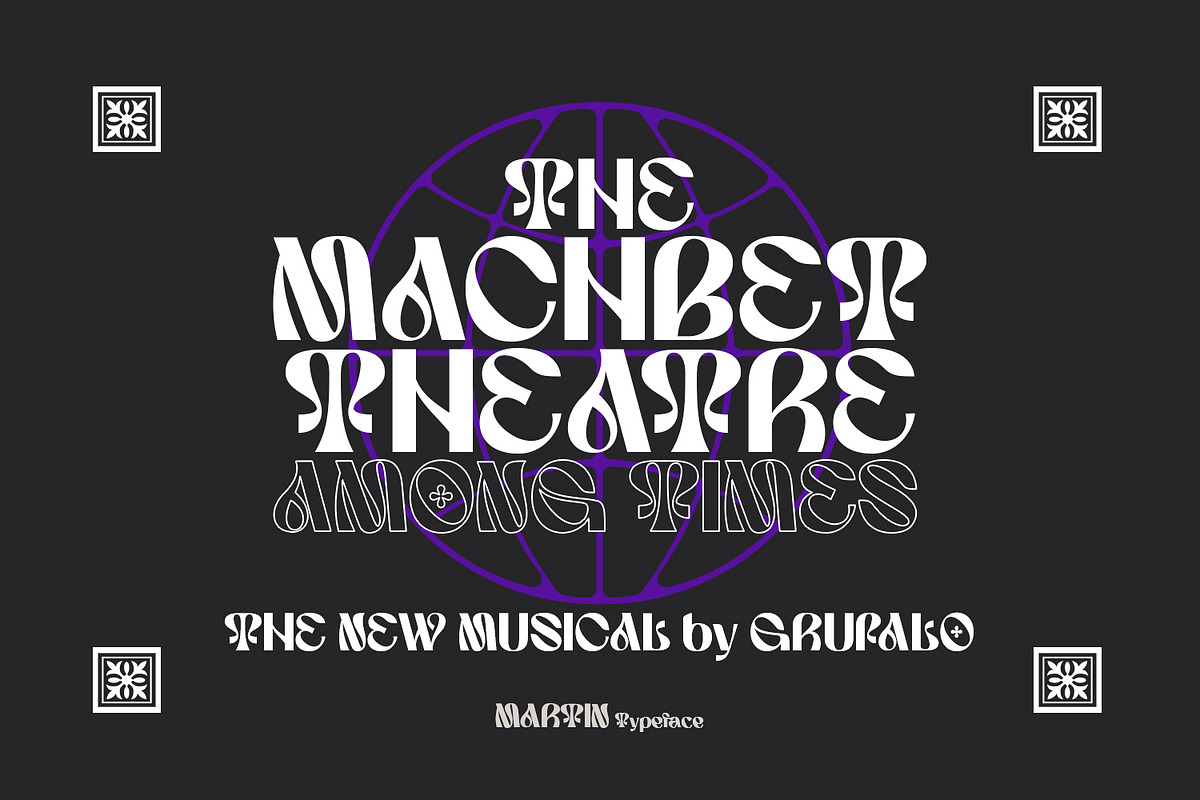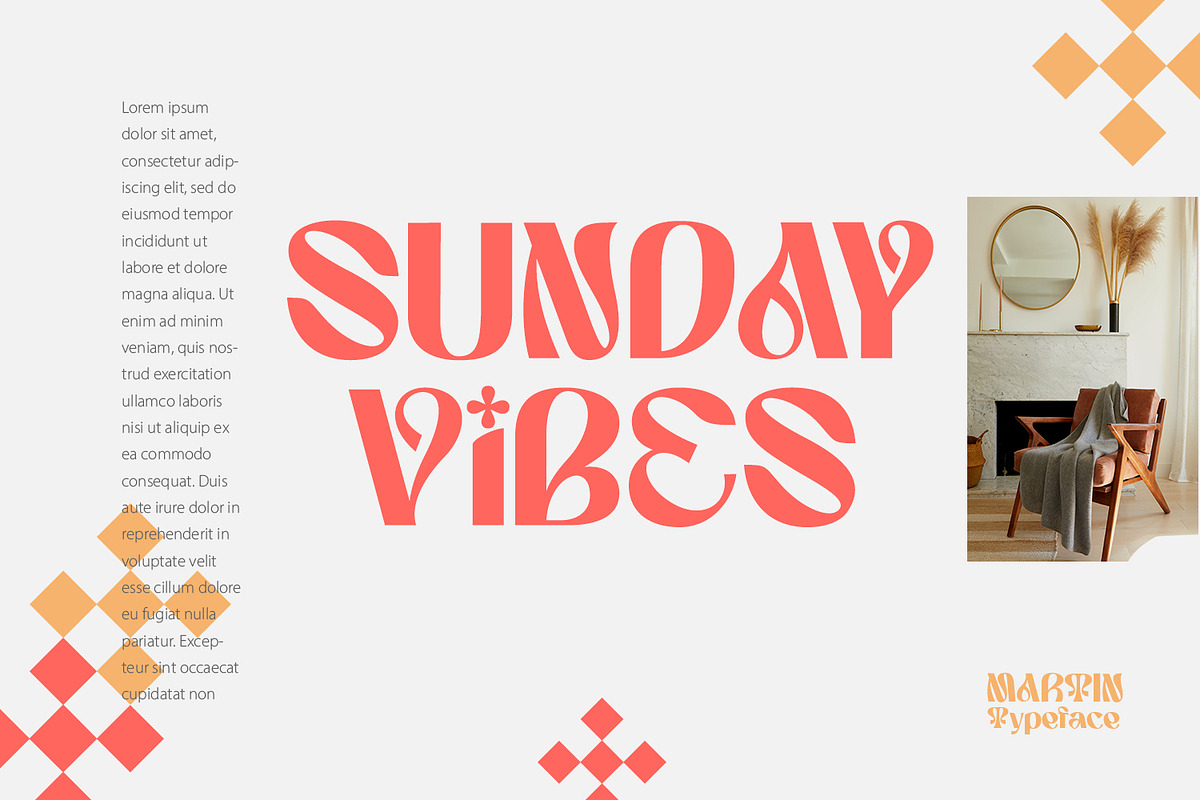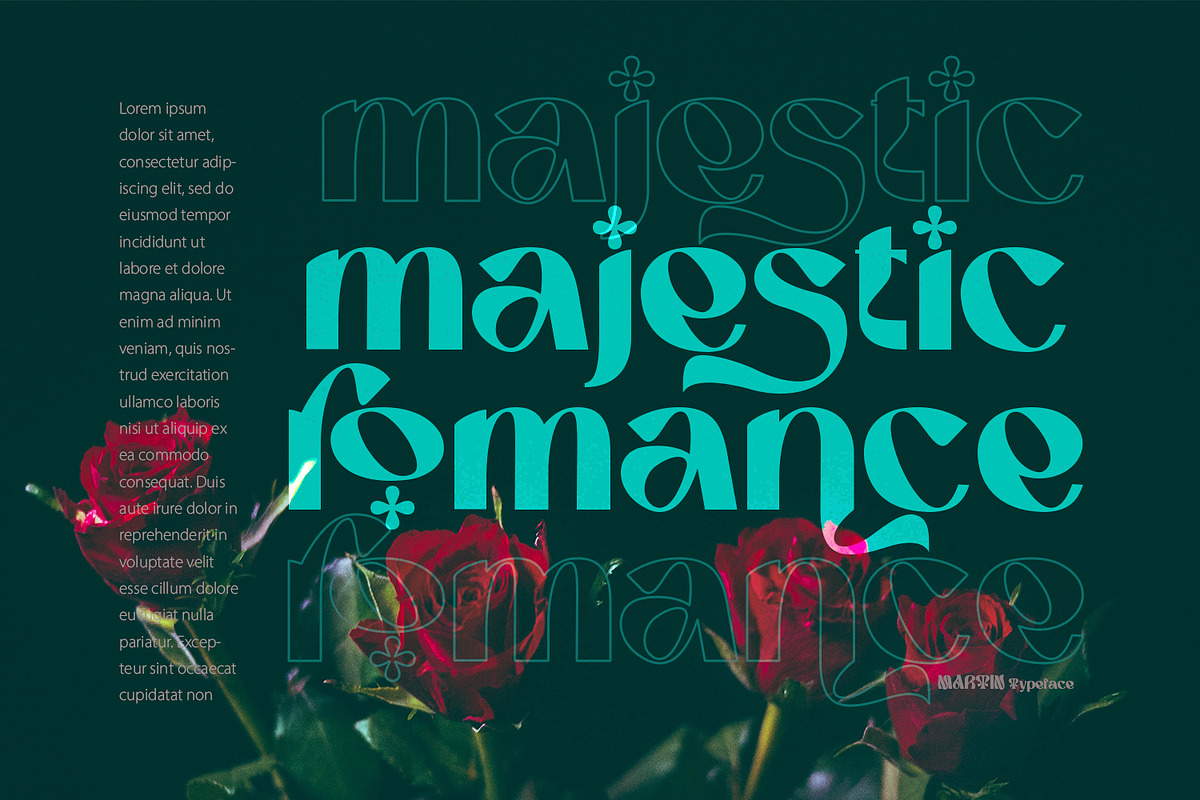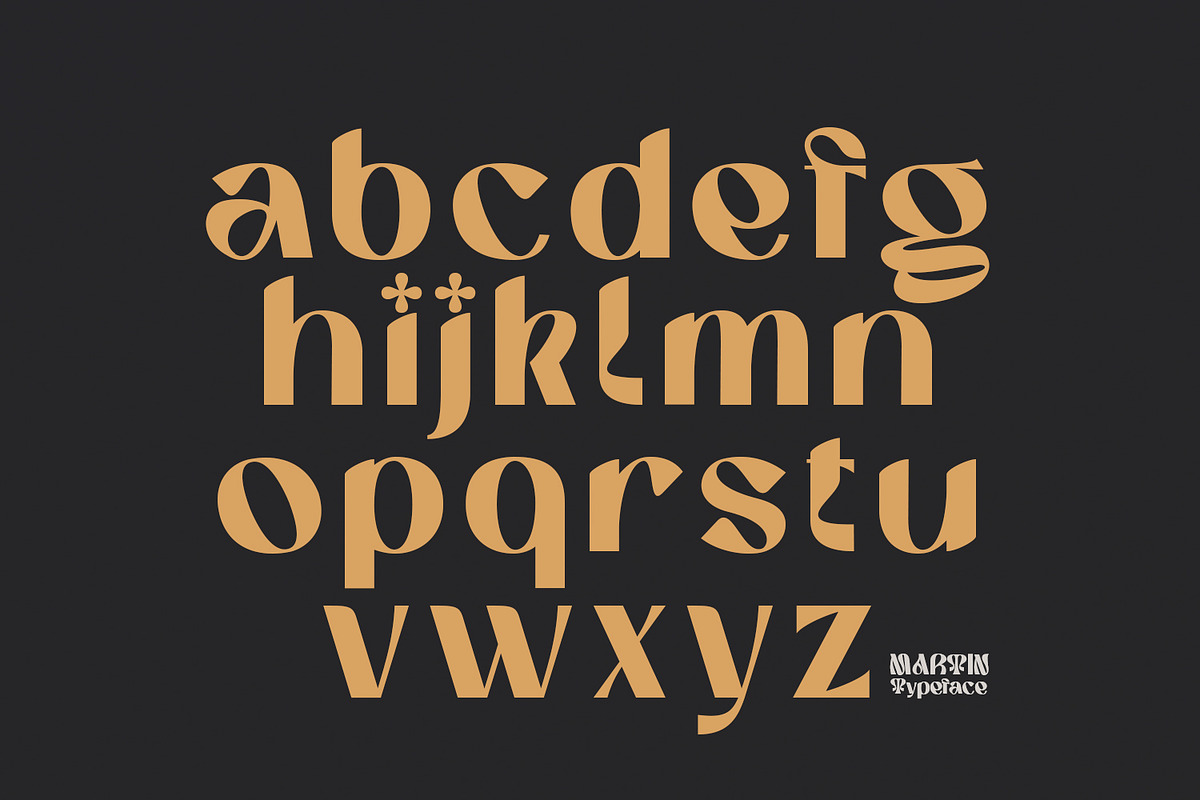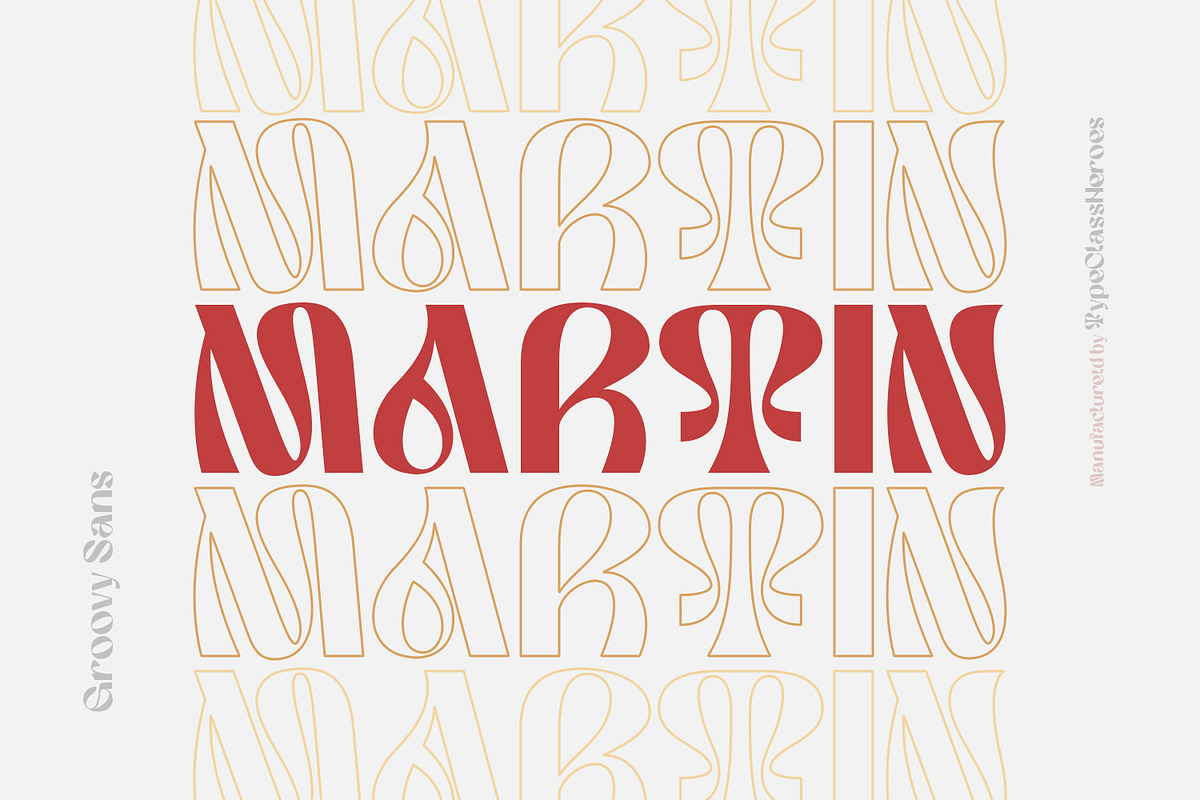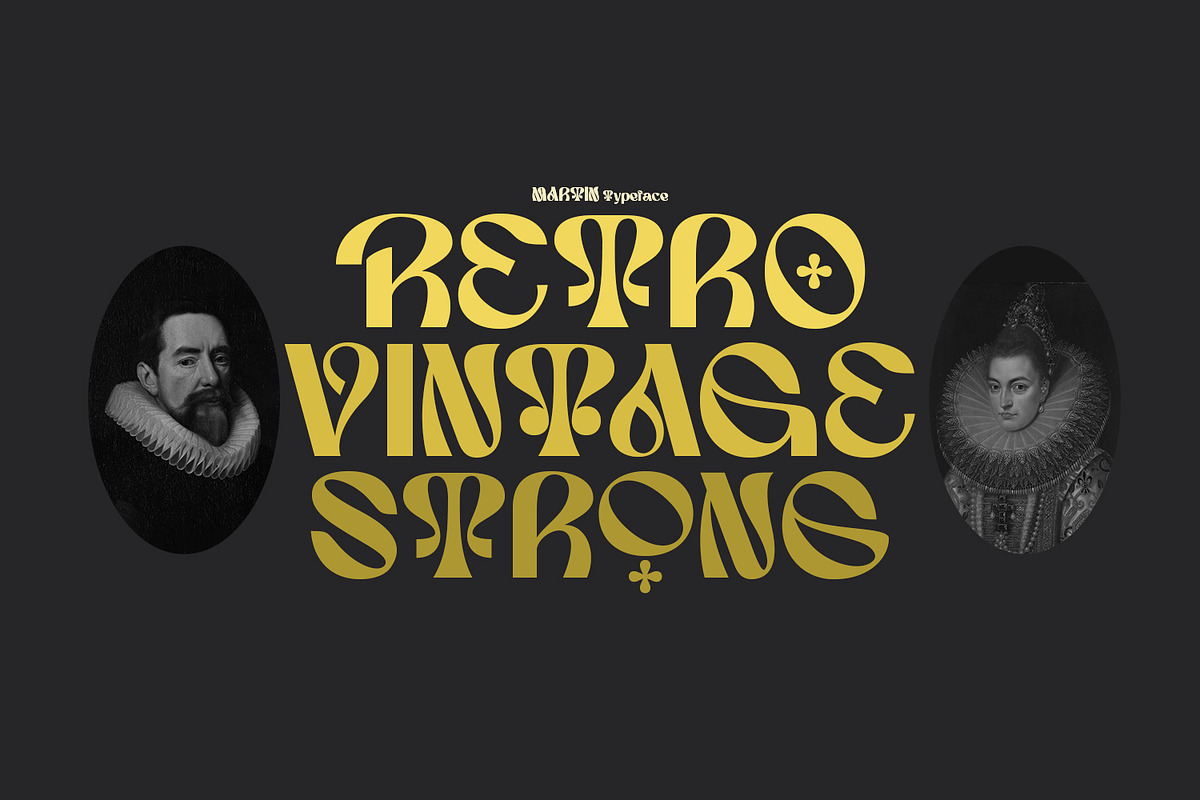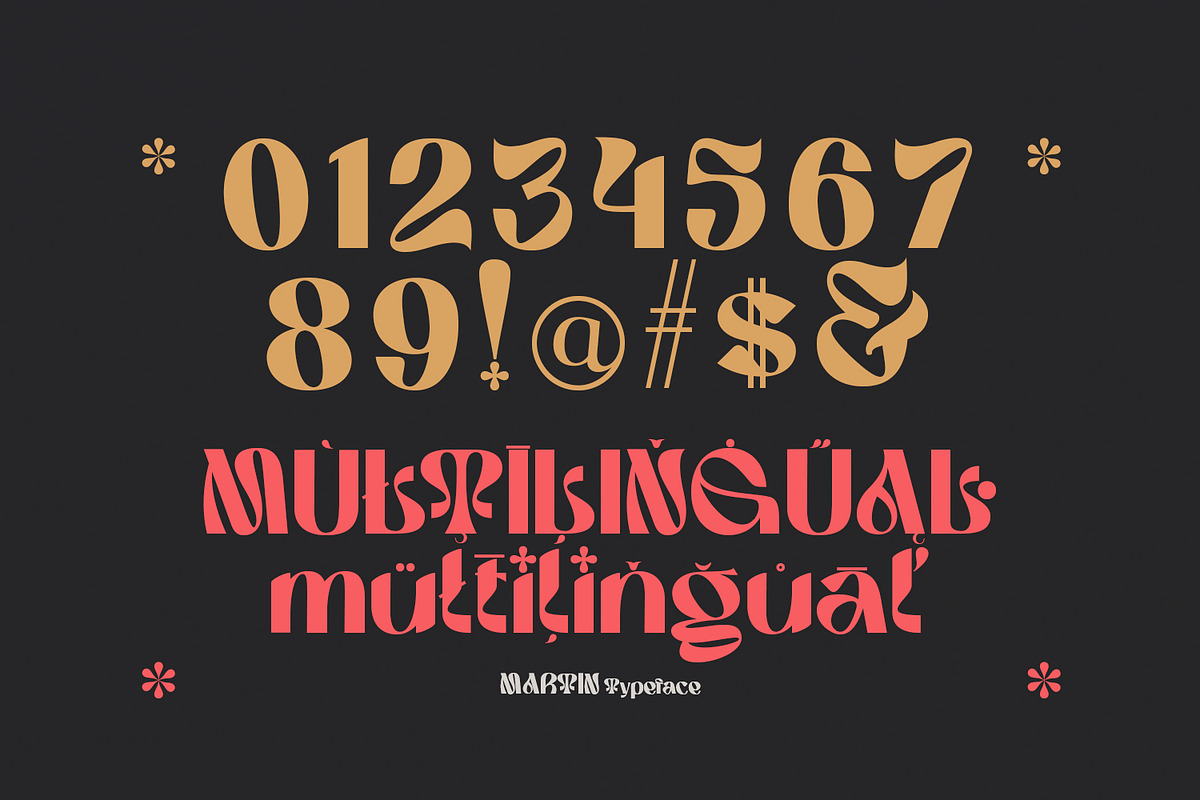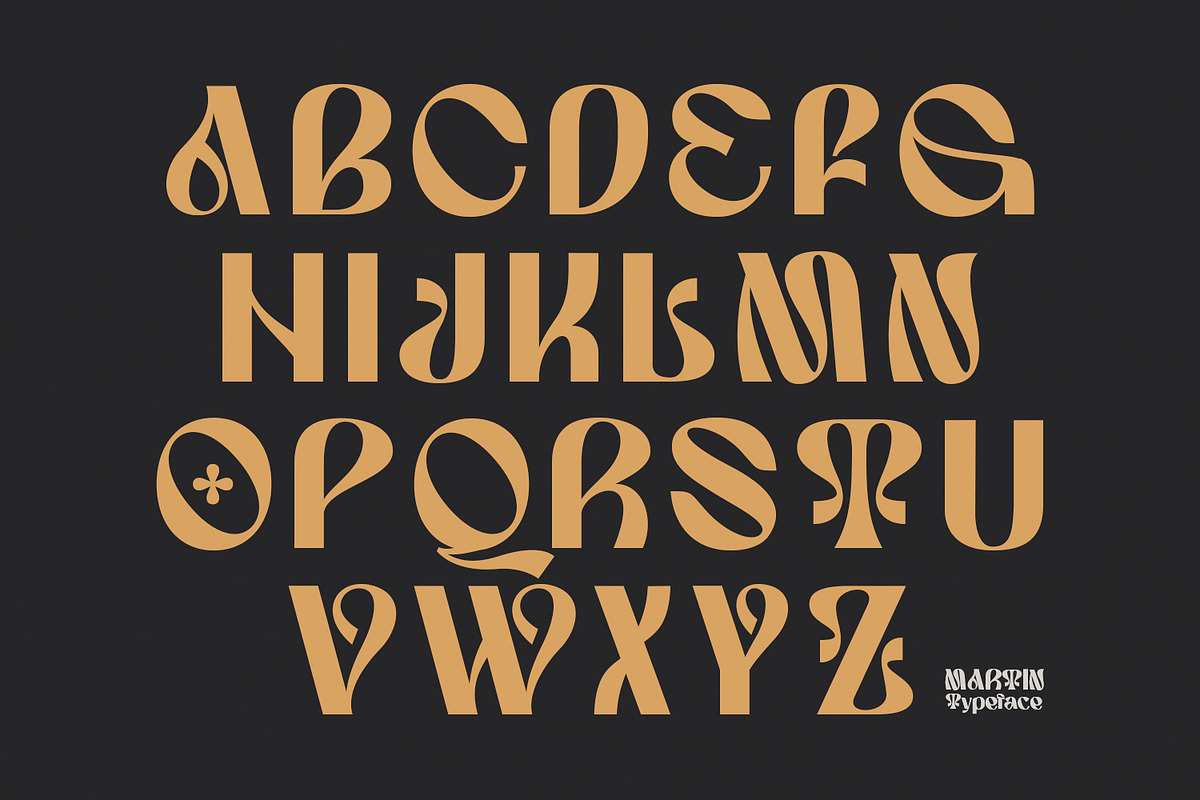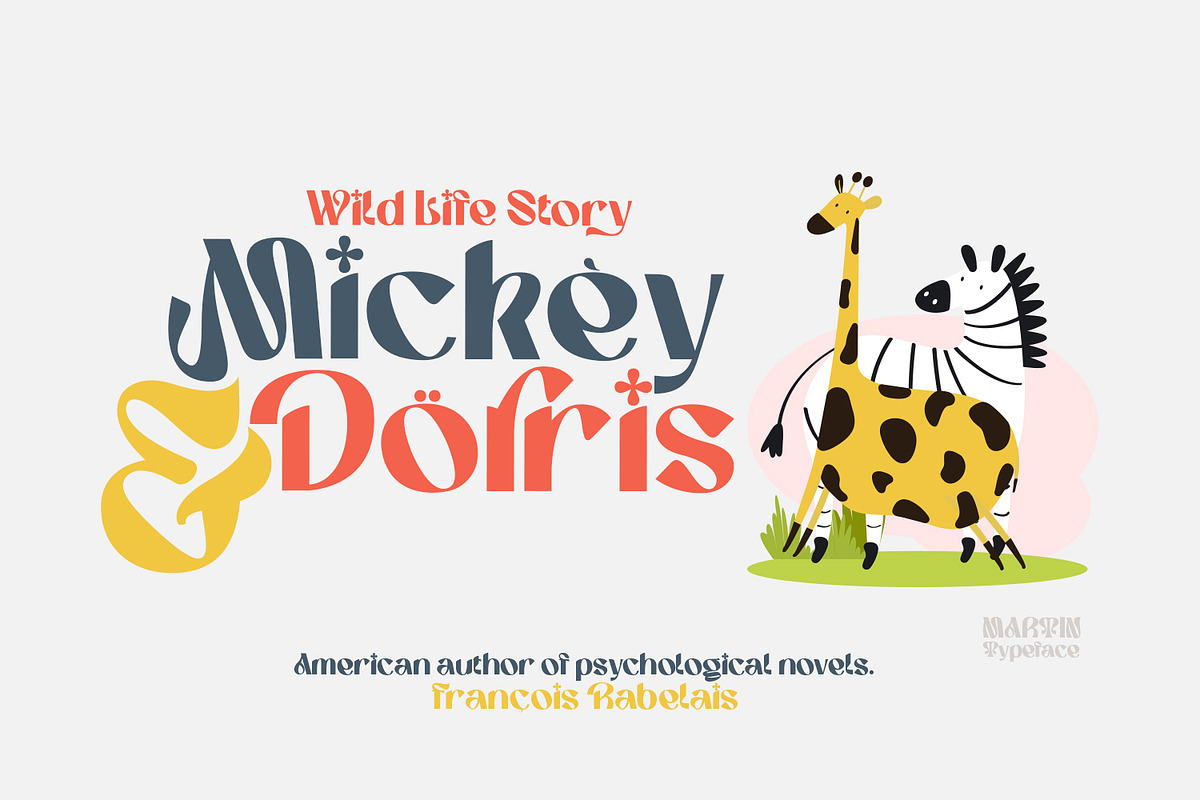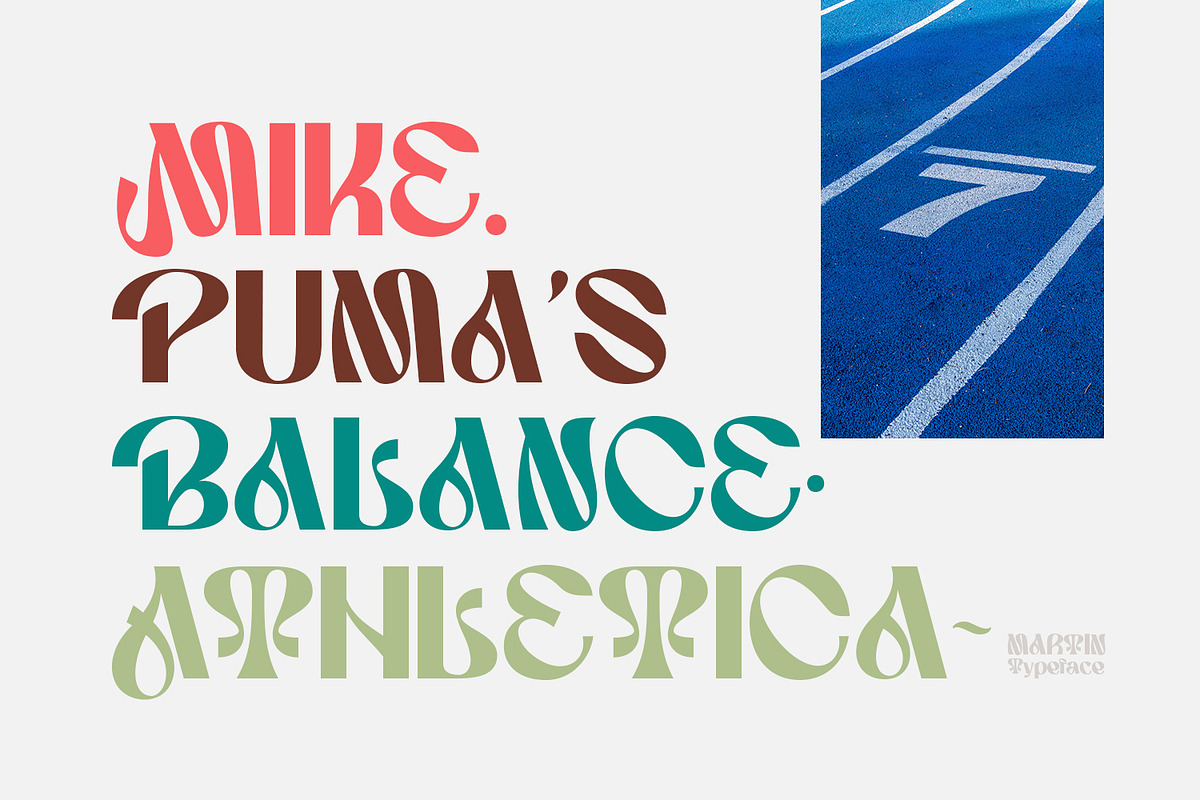
Martin - Groovy Sans
Introducing Martin is a Groovy Sans, use this font for any branding, product packaging, invitation, quotes, t-shirt, label, poster, logo etc.